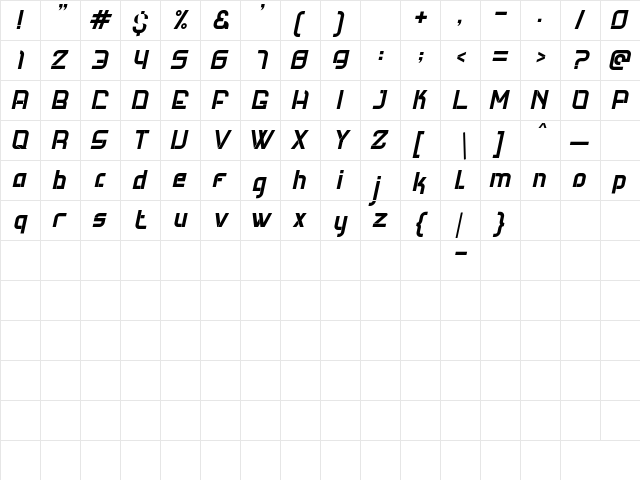
Future Techno Italic Regular
| Designer | Surya Iswandi |
Design Context for Future Techno Italic Typeface
Future Techno Italic has a distinctly futuristic character, with geometric precision and clean angles that feel at home in technology, gaming, and sci-fi contexts. The slanted form adds forward momentum and visual energy.